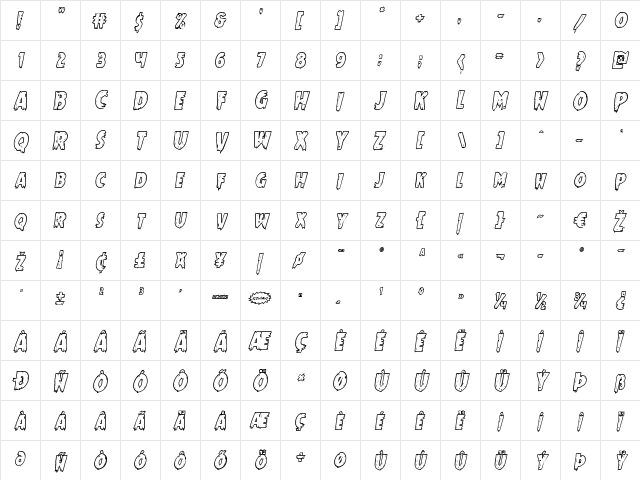
Mrs. Monster Bold Outline Italic Italic Font Preview
Design Context for Mrs. Monster Bold Outline Italic Typeface
Mrs. Monster Bold Outline Italic brings ornamental detail and strong personality to headlines and identities, where visual impact matters more than quiet functionality. Its italic angle brings a sense of urgency and motion to the letterforms. Its bold stroke weight gives it real presence on the page.
Font Pairing: Pair with a clean neutral sans-serif for body copy to let Mrs. Monster Bold Outline Italic's character lead without overwhelming the composition.
Pro Tip: Treat Mrs. Monster Bold Outline Italic as the centrepiece of your typographic hierarchy. One strong heading set in a decorative face can carry an entire layout.